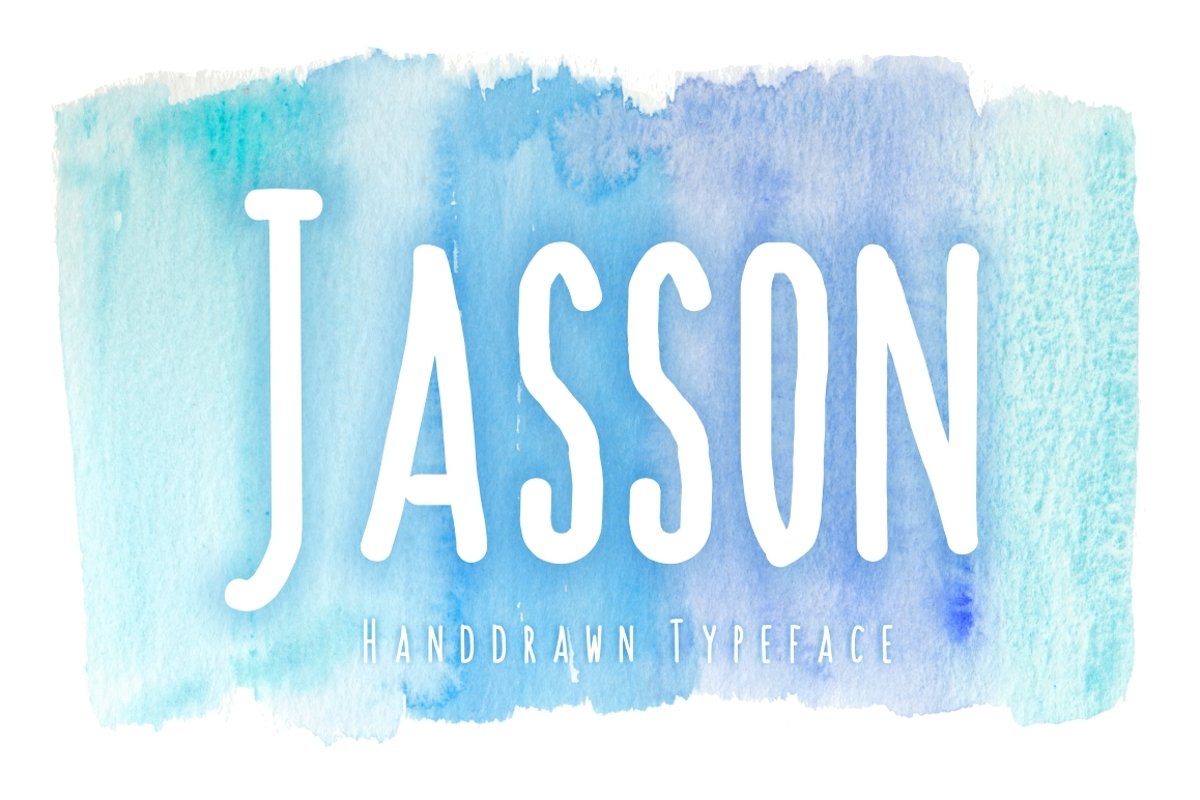
Jasson
Jasson is a sans font with enough to wiggle and wiggle the line to let the character drawn from his hand shine.
Stick with regular letters directly, or kick your project up a notch with extra extra high, extra short, or extra-turn.